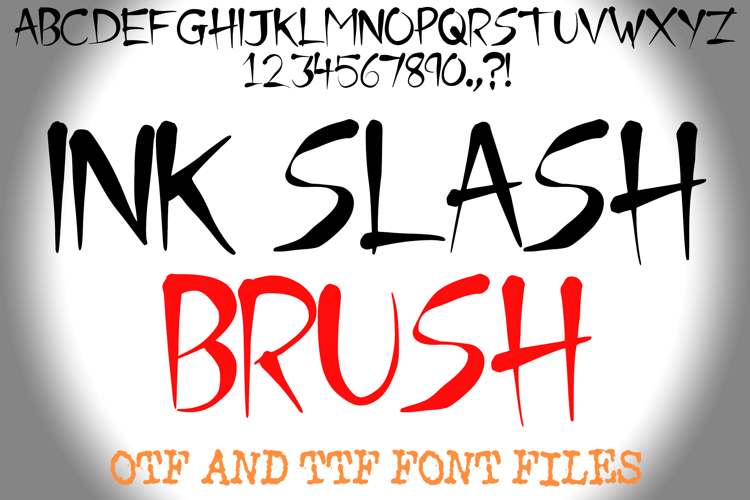
Ink Slash Brush is a bold and expressive handwritten brush font that combines messy strokes with modern style. Perfect for posters, streetwear designs, logos, album covers, social media graphics, and edgy branding projects, this font brings raw energy and artistic flair to any design.
With its urban graffiti-inspired look, Ink Slash Brush is ideal for projects that need a handmade, authentic touch. Whether you’re designing bold headlines, eye-catching quotes, or unique packaging, this brush font will make your work stand out.